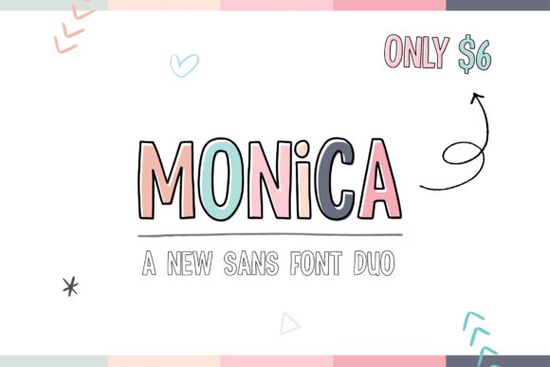
If you’ve been searching for a display font that feels playful but still polished, Monica Font might be exactly what your next project needs. It’s got personality quirky letterforms with just enough charm to stand out without overwhelming your design. Whether you’re working on kids’ birthday invites, quote graphics for social media, or branding materials for a small business, this font adds a lighthearted touch that still reads clearly and cleanly.
What makes Monica especially handy is how flexible it is. You don’t need to limit it to “childish” projects it works surprisingly well on posters, book covers, packaging mockups, or even apparel designs for print-on-demand shops. The curves are friendly, the spacing is balanced, and it pairs easily with simpler sans-serifs if you want contrast.
What kinds of projects does Monica Font work best for?
Here’s where this font really shines:
- Kids’ products Think games, activity books, classroom posters, or educational apps.
- Quote graphics Especially motivational or humorous ones that benefit from a hand-drawn vibe.
- Brand names For boutiques, bakeries, or craft businesses wanting a warm, approachable identity.
- Book covers Particularly middle-grade fiction, self-help titles with a casual tone, or illustrated journals.
- Event posters Birthday parties, community fairs, school plays you name it.
It’s not the kind of font you’d use for body text or corporate reports, but that’s not its job. Monica is here to grab attention in a fun, non-intimidating way.
How does it compare to other quirky display fonts?
If you’ve used Brush King before, you know it leans into bold, brushstroke energy great for action-packed designs. Monica is softer, more rounded, less aggressive. For something with similar whimsy but a chalkboard texture, check out Chalk Zone. Or if you like retro diner vibes, Fries and Shake has that 50s flair. And for vintage book lovers, Bookman offers classic elegance without the playfulness.
Monica sits right in the sweet spot between childlike and contemporary. Not too cartoony, not too stiff. If Tiki Bar is your go-to for tropical themes, Monica could be your everyday alternative for everything else cheerful and creative.
Any tips for pairing Monica with other fonts?
Absolutely. Because Monica has such distinct letterforms, you’ll want to balance it with something clean and neutral. Try pairing it with:
- A simple sans-serif like Montserrat or Lato for headers and subheaders.
- A thin serif like Playfair Display if you’re going for contrast in editorial layouts.
- Even a minimalist handwritten font (not another display style) to keep things cohesive.
Avoid pairing it with other overly decorative fonts that’s when things start to feel cluttered. Let Monica be the star, and support it with understated companions.
Monica Font isn’t trying to be everything to everyone and that’s why it works so well. It knows its role, fills it with charm, and gets out of the way. If your design needs a little joy without tipping into chaos, give it a try.